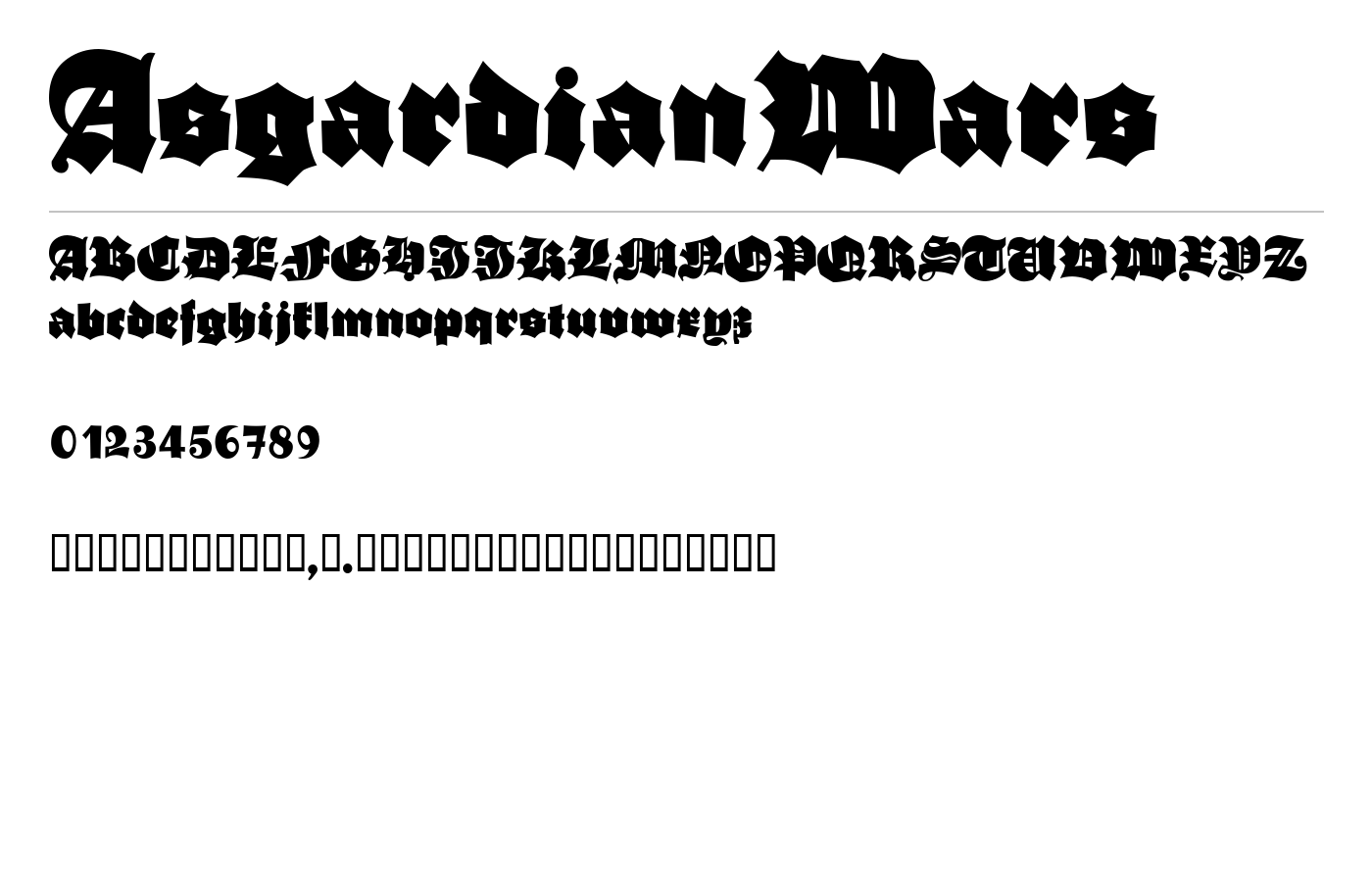
AsgardianWars is a bold, blackletter-style font with thick, angular strokes and sharp serifs that evoke a medieval, gothic vibe. Its strong contrast and intricate letterforms make it ideal for dramatic headlines, fantasy themes, or branding that seeks an old-world, robust personality. This font works best in display uses such as logos, posters, and titles where a striking, historic, and powerful presence is desired.
AsgardianWars Font